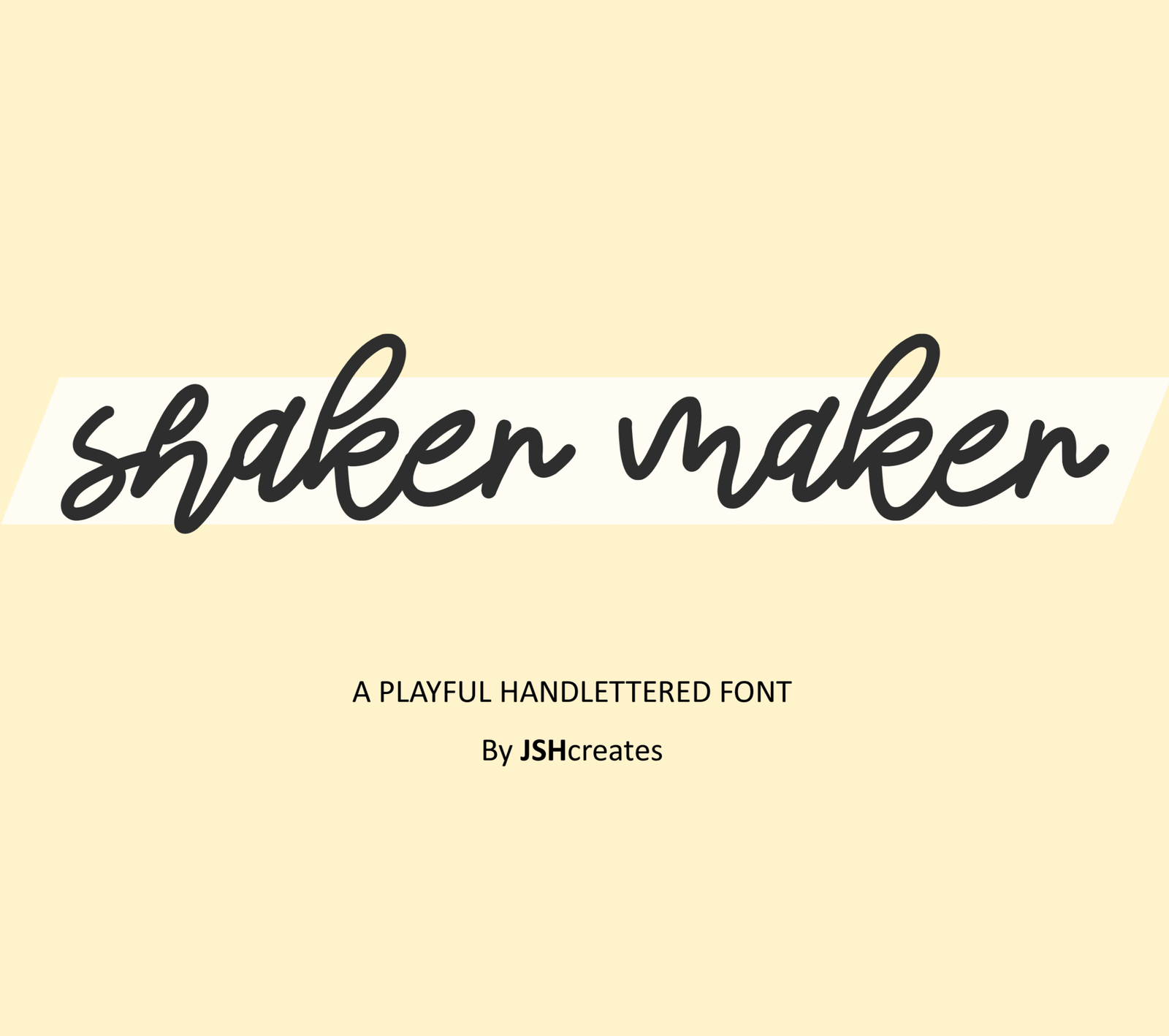
Shaker Maker Font
Playful handlettered script font. “Shaker Maker”. Perfect for advertising and display purposes, including banners, book covers, shirts, posters, logos and much more!
Font includes all upper and lowercase letters, numbers, characters and punctuation.